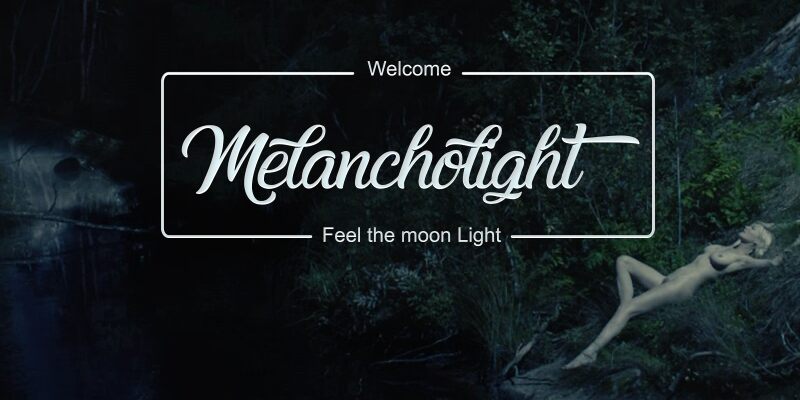
Melancholight is a captivating calligraphic font that exudes a delicate, ethereal essence. Crafted by Octotype, this font's sweeping, fluid strokes evoke a sense of melancholy and introspection, making it an ideal choice for editorial design, book covers, and personal stationery. The seamless, interconnected letterforms create a harmonious, visually striking composition, while the subtle variations in line thickness add depth and character to the overall aesthetic.
Melancholight's versatility extends to a wide range of applications, from high-end branding to elegant wedding invitations, where its emotive, handcrafted style can elevate the visual experience.
Melancholight